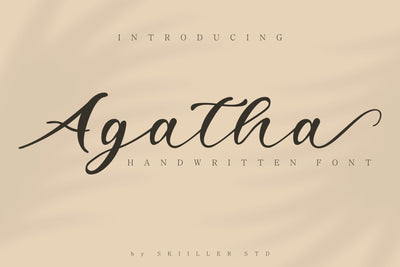
Agatha Handwritten Font
Agatha is a minimalist handwritten font that is equally beautiful and minimalist. Get inspired by the unique style!
Ligature\
Stylistic set for lowercase\
Stylistic set for Ending\